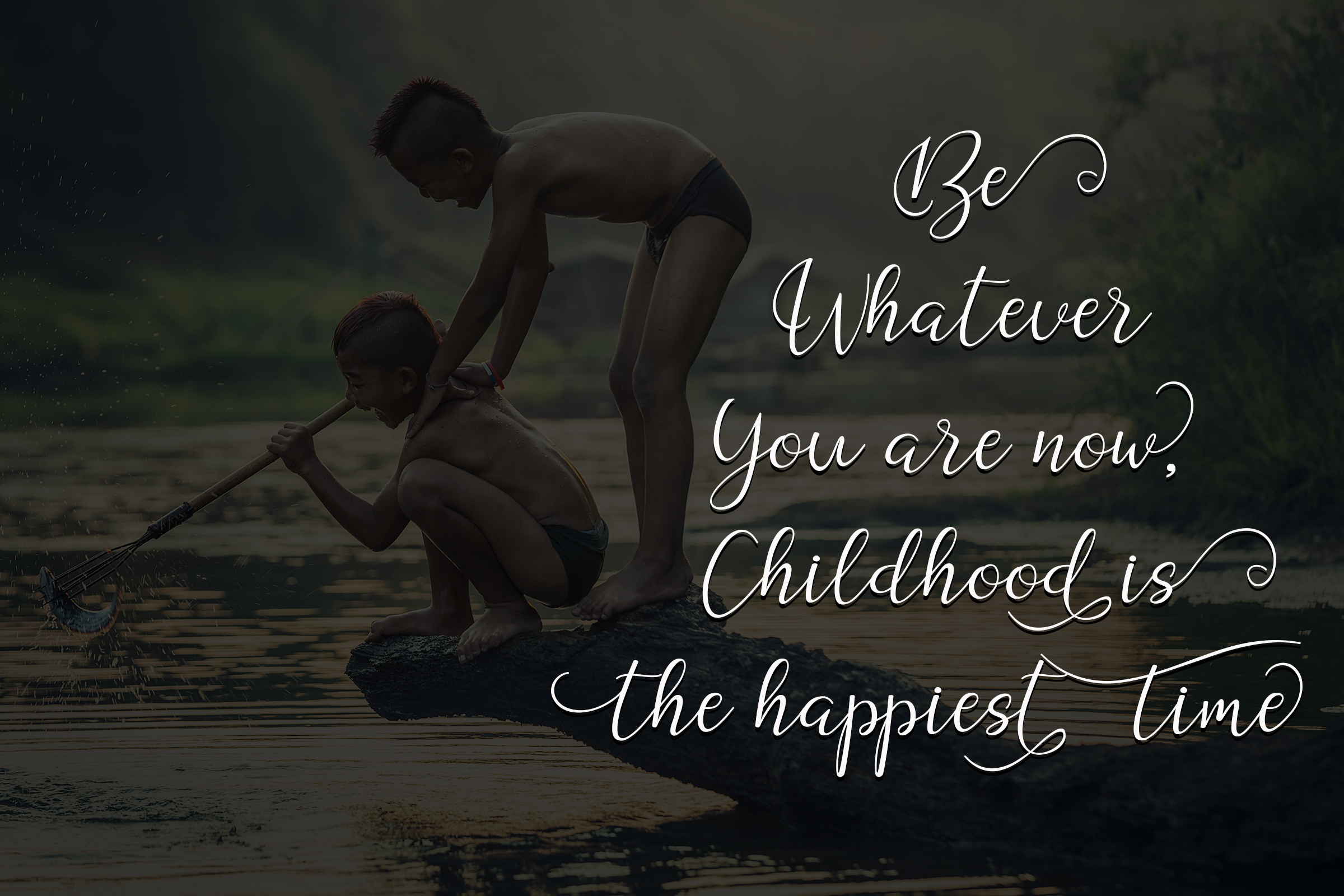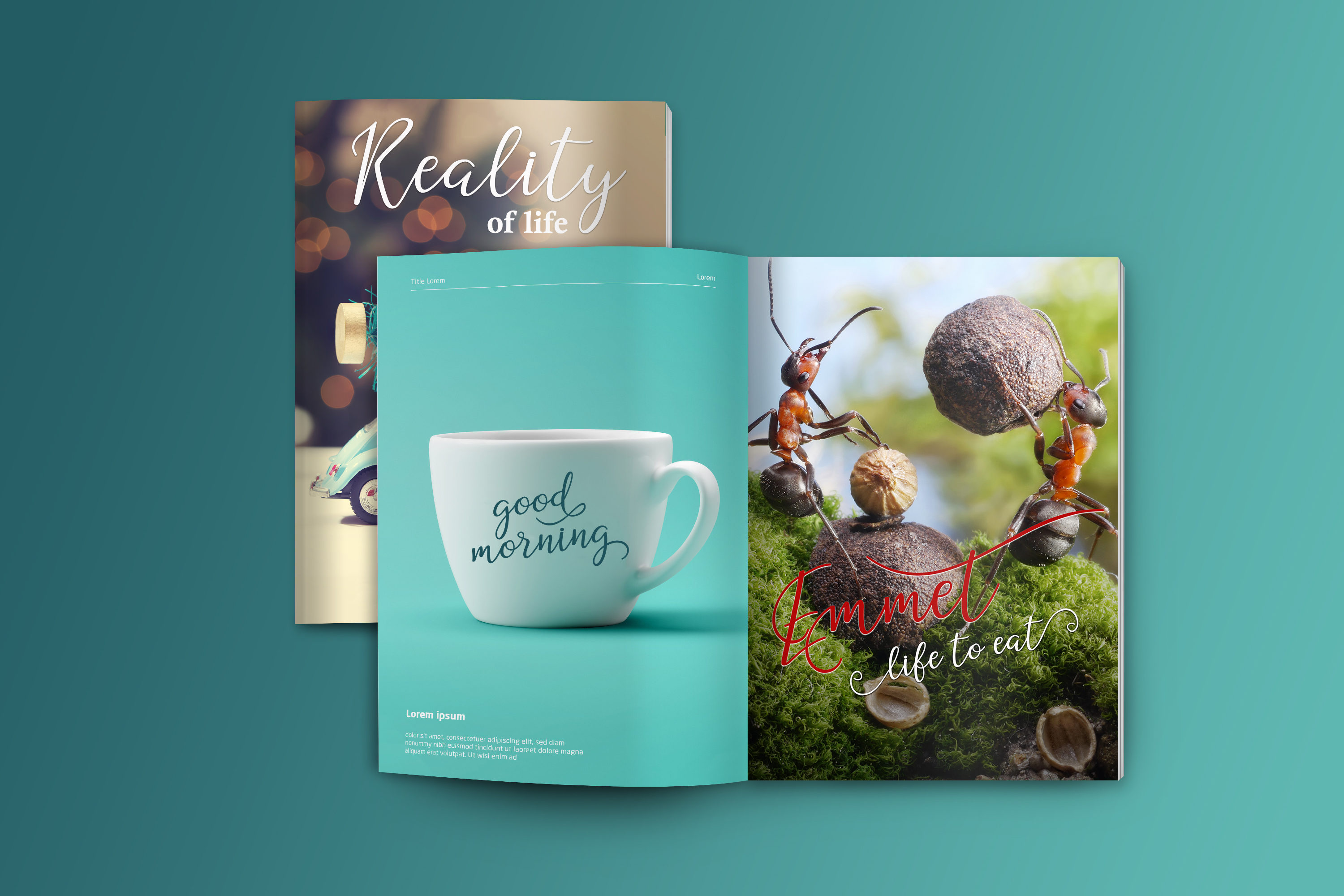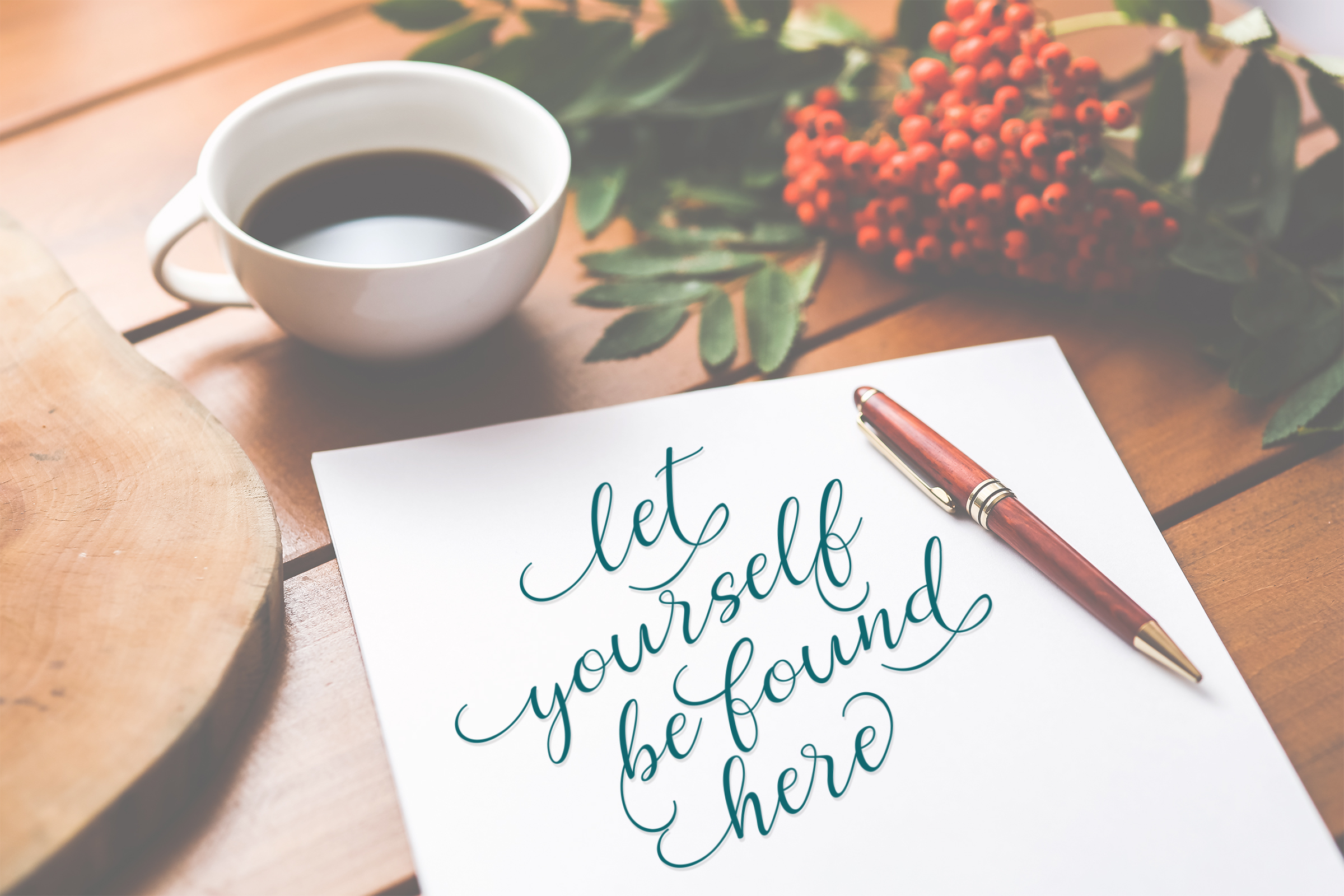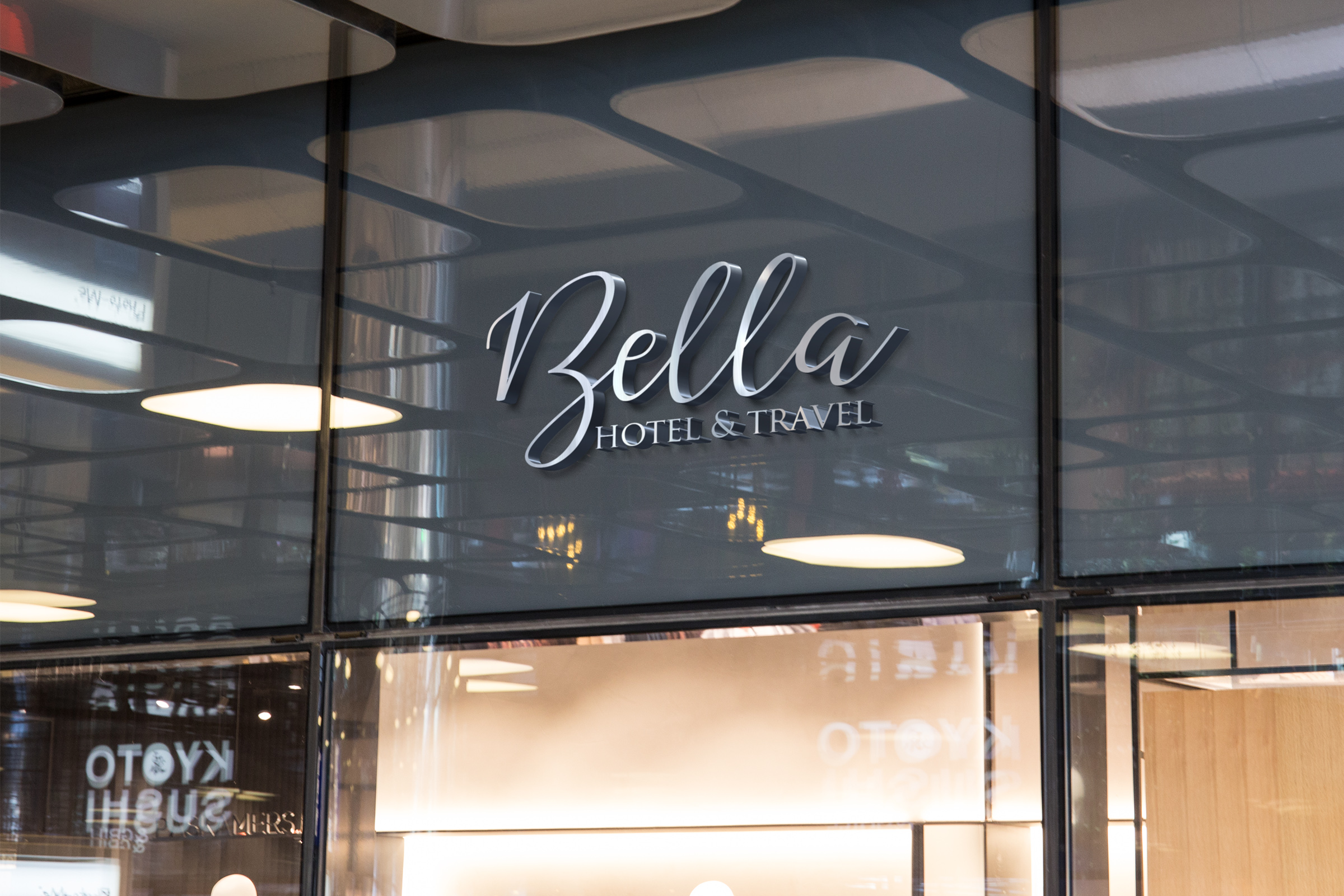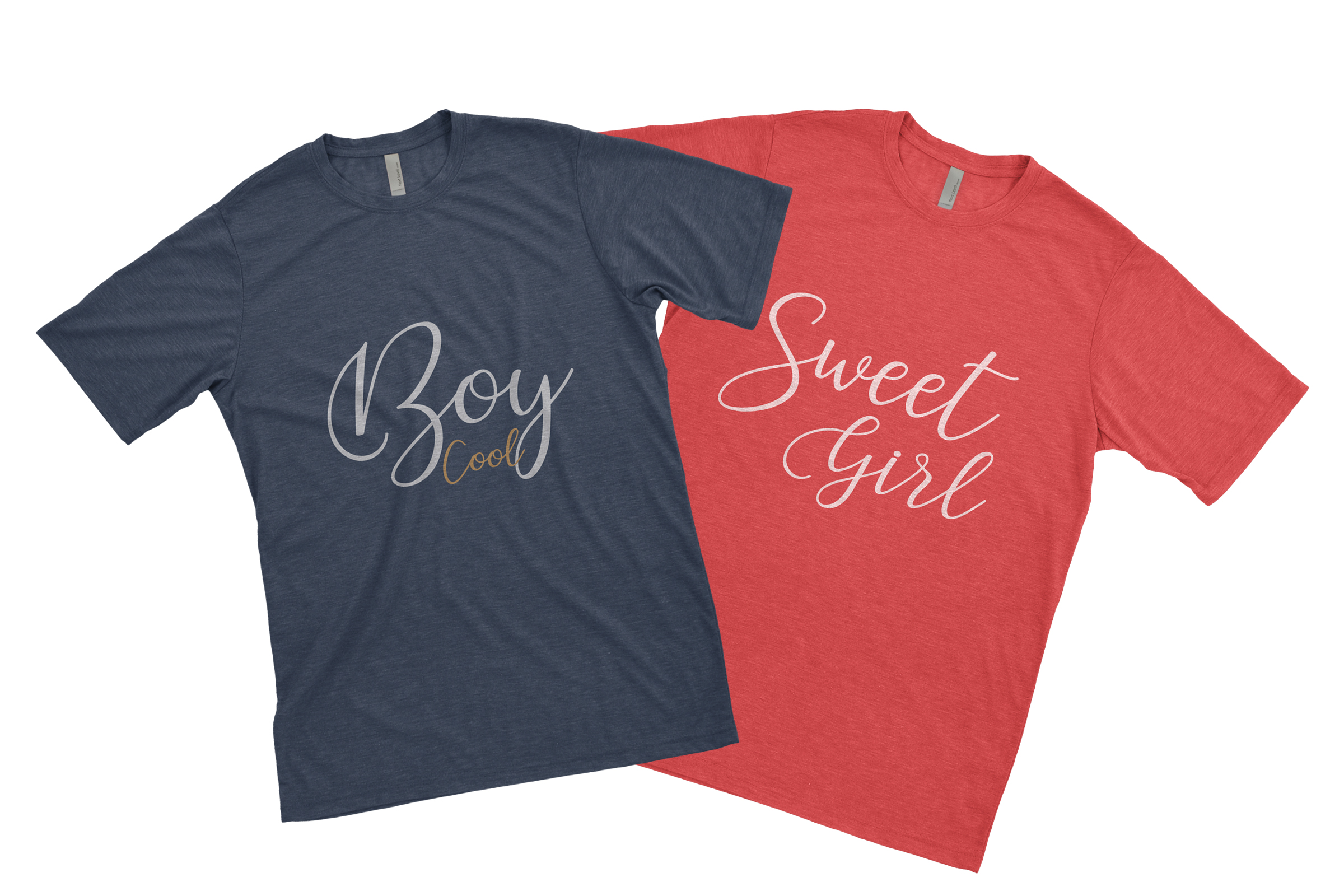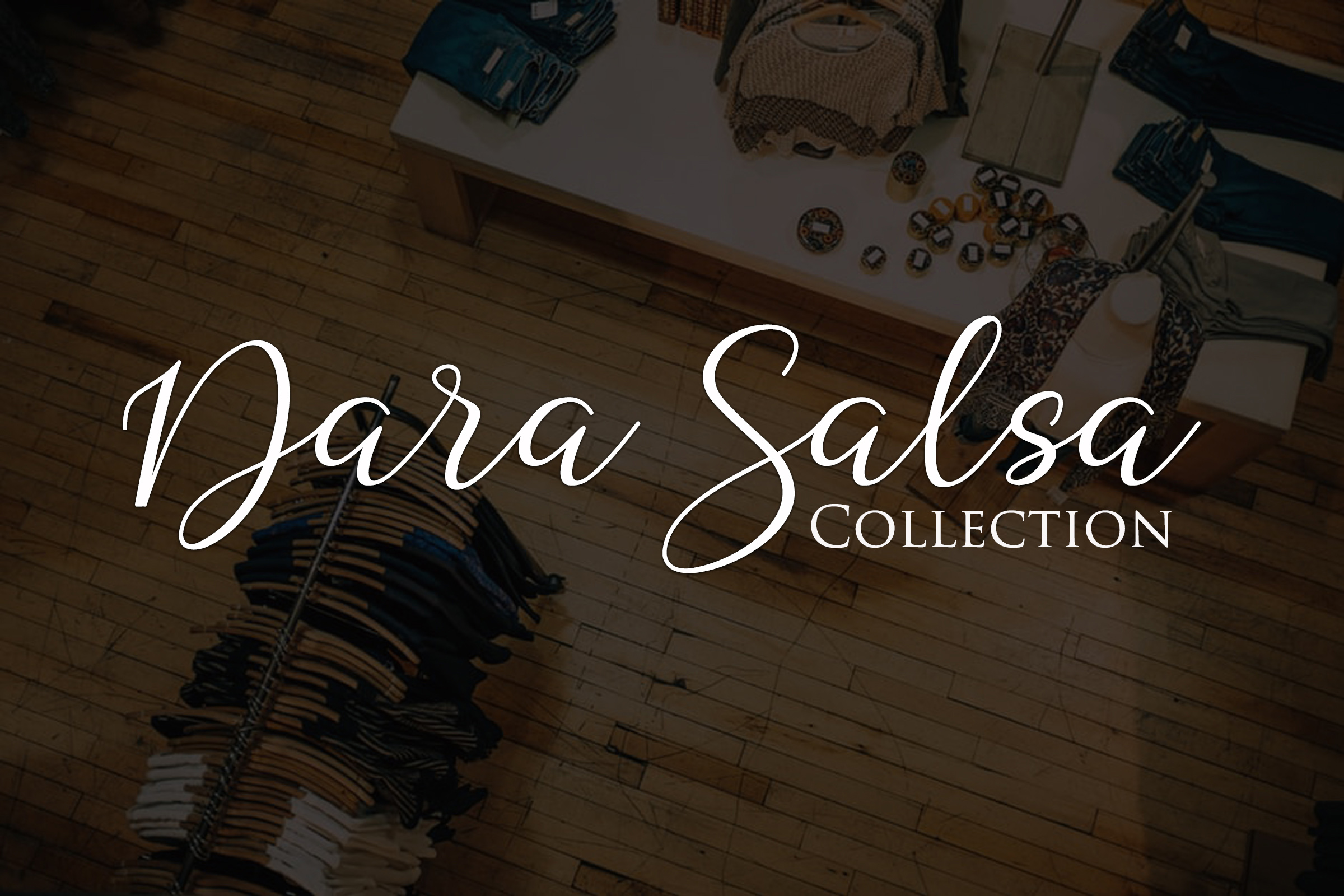
Introducing Dogma Script Font: Elegance and Fluidity in Handwritten Style
In the realm of typography, few fonts manage to capture the essence of elegance and fluidity as effectively as the Dogma Script Font. This beautiful, handwritten script font has been turning heads with its sophisticated appearance and versatility, making it a favorite among designers and crafters alike. In this article, we’ll delve into the features of Dogma Script Font, explore its uses, and discuss why it has become a go-to choice for those seeking to add a touch of refinement to their projects.
The Essence of Dogma Script Font
Dogma is an elegant, fluid handwritten script that exudes a sense of luxury and sophistication. Its fluid strokes and graceful connections between letters create a harmonious flow that is both visually appealing and highly readable. This stunning font is not just a simple collection of characters; it is packed with extra swashes, allowing designers to add an extra layer of creativity and flair to their work.
Key Features of Dogma Script Font
- Elegant and Fluid Design: Dogma’s design is characterized by its smooth, flowing lines that give it an elegant appearance, perfect for projects that require a touch of sophistication.
- Handwritten Script Style: The font’s handwritten nature adds a personal and unique touch to any project, making it stand out from more traditional typefaces.
- Packed with Extra Swashes: One of the standout features of Dogma is its inclusion of extra swashes. These decorative elements can be used to add flair to headings, titles, and even body text, giving designers a wide range of creative possibilities.
- Versatility: Dogma Script Font is highly versatile, making it suitable for a variety of projects, from branding and advertising to packaging and web design.
Uses of Dogma Script Font
The versatility of Dogma Script Font makes it an excellent choice for a wide range of applications. Here are some of the most popular uses:
- Branding and Logo Design: The elegant and sophisticated nature of Dogma makes it perfect for branding and logo design, especially for businesses that want to convey a sense of luxury or refinement.
- Wedding and Event Stationery: The romantic and fluid design of Dogma is well-suited for wedding invitations, save-the-date cards, and other event stationery, adding a touch of elegance to any celebration.
- Advertising and Marketing Materials: Dogma’s unique and eye-catching design makes it an excellent choice for advertising and marketing materials, helping brands to stand out in a crowded marketplace.
- Web Design: For web designers, Dogma can add a touch of sophistication to website headers, titles, and even body text, enhancing the overall user experience.
Why Choose Dogma Script Font?
With so many fonts available to designers and crafters, why choose Dogma Script Font? Here are a few compelling reasons:
- Unique and Distinctive: Dogma’s elegant and fluid design sets it apart from more common typefaces, allowing designers to create unique and distinctive projects.
- High Readability: Despite its decorative nature, Dogma remains highly readable, making it suitable for both headings and body text.
- Support for Multiple Languages: Dogma supports multiple languages, making it a versatile choice for international projects.
| Font Name | Dogma Script Font |
| Author | Mrletters |
Dogma Script Font is a stunning example of elegant and fluid handwritten typography. With its sophisticated design, extra swashes, and versatility, it has become a favorite among designers and crafters looking to add a touch of refinement to their projects. Whether you’re working on branding, advertising, web design, or event stationery, Dogma Script Font is an excellent choice that can help you achieve your creative goals. So, if you’re looking for a font that combines elegance, fluidity, and creativity, look no further than Dogma Script Font.